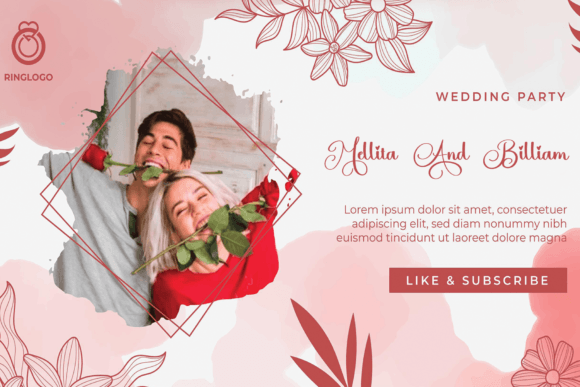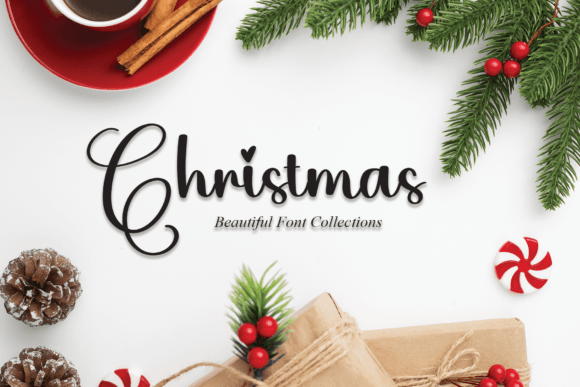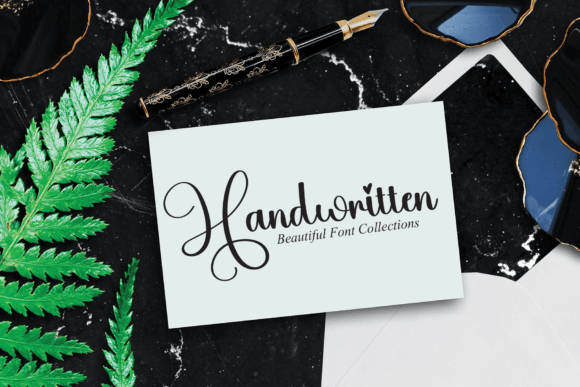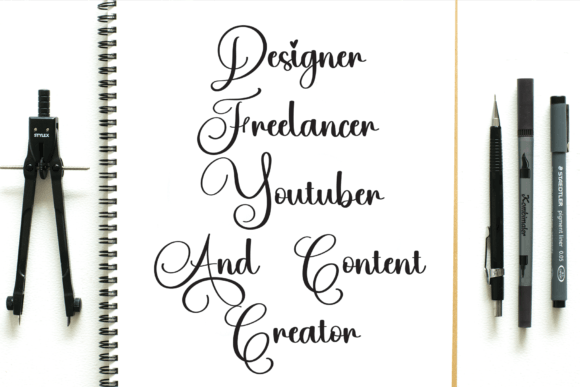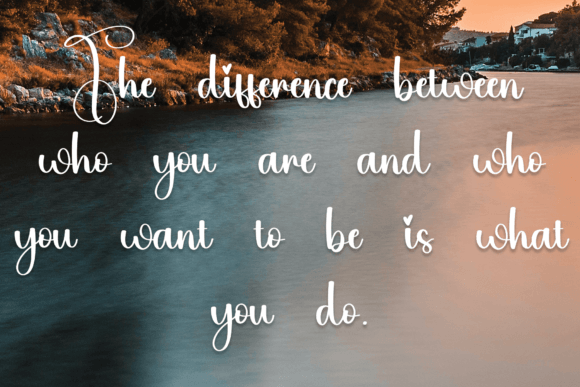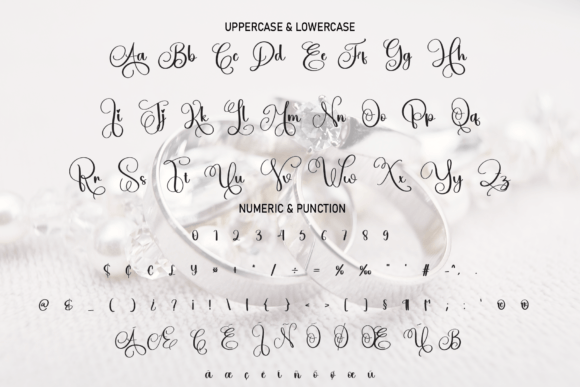
Earrings Font: Elevate Your Designs with a Touch of Handwritten Elegance
In the world of design, fonts play a crucial role in conveying the tone and aesthetic of a project. For those seeking a touch of elegance and whimsy, the Earrings Font is an excellent choice. This beautiful, handwritten font is perfect for a variety of applications, from wall displays and wedding invitations to social media post logos, advertisements, product packaging, and more.
What is Earrings Font?
Earrings Font is a carefully crafted, handwritten typeface that exudes a sense of sophistication and charm. Its unique, cursive style is reminiscent of elegant handwriting, making it an ideal choice for designers and crafters looking to add a personal touch to their work.
Key Features of Earrings Font
- Handwritten style: Earrings Font boasts a beautiful, handwritten aesthetic that adds a touch of warmth and personality to any design.
- Elegant and whimsical: This font strikes the perfect balance between elegance and playfulness, making it suitable for a wide range of projects.
- Versatile: Earrings Font can be used for various applications, including wall displays, wedding invitations, social media post logos, advertisements, product packaging, product designs, labels, photography, watermarks, invitations, stationery, and more.
- Easy to read: Despite its ornate nature, Earrings Font remains easy to read, ensuring that your message is conveyed clearly and effectively.
Earrings Font is an excellent choice for designers and crafters looking to elevate their work with a touch of handwritten elegance. Whether you’re creating:
- Wedding invitations: Add a romantic touch to your wedding stationery with Earrings Font.
- Social media post logos: Stand out on social media with eye-catching logos and graphics featuring Earrings Font.
- Product packaging: Give your products a personalized touch with Earrings Font.
- Wall displays: Create stunning wall art with Earrings Font.
- Invitations and stationery: Add a touch of whimsy to your invitations and stationery with Earrings Font.
Tips for Using Earrings Font
To get the most out of Earrings Font, consider the following tips:
- Pair with contrasting fonts: Combine Earrings Font with a clean, sans-serif font to create visual interest.
- Experiment with colors: Try pairing Earrings Font with different colors to add depth and personality to your design.
- Use it sparingly: Earrings Font is best used sparingly, as its ornate nature can be overwhelming in large quantities.
Earrings Font is a beautiful, handwritten typeface that adds a touch of elegance and whimsy to any design. Its versatility, readability, and charm make it an excellent choice for designers and crafters looking to elevate their work. Whether you’re creating wedding invitations, social media post logos, product packaging, or wall displays, Earrings Font is the perfect choice for adding a personal touch to your projects.